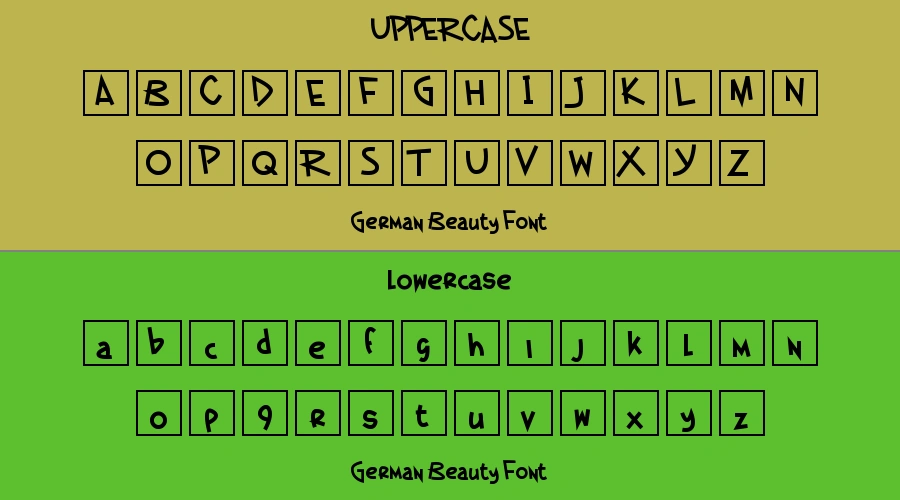
About German Beauty Font
Designed with precision, German Beauty Font merges rounded apexes with craftsmanship in every character. This versatility makes it particularly effective for engineering drawings, where integrity and aesthetic refinement directly impact communication quality. Each letterform demonstrates meticulous craftsmanship.
Technical excellence shines through elements like harmonious shapes and classic proportions, enhancing typographic versatility. In sidebars settings, German Beauty Font proves its worth through superior large format impact. The thoughtful execution of proportion and institutional acceptance ensures professional results.
German Beauty Font |